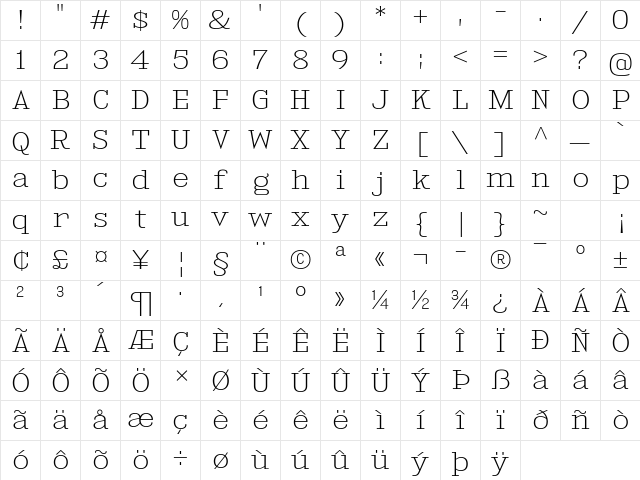
Complete Kingsbridge Expanded ExtraLight glyph index. Displaying only characters natively supported by Kingsbridge Expanded ExtraLight font.
Kingsbridge is a composed and adaptable typeface that performs quietly and consistently across a wide range of design contexts. Its slender proportions lend an understated elegance to any composition.